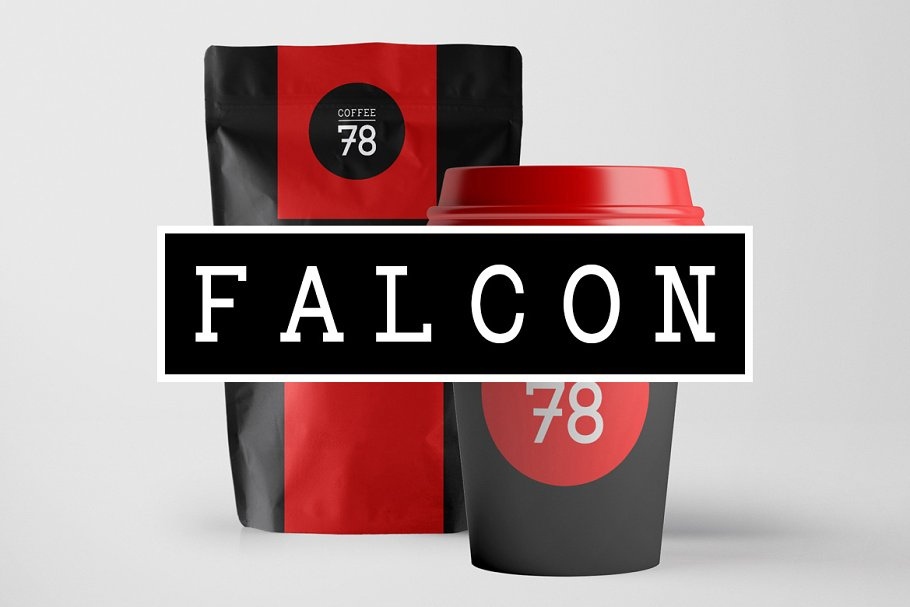
Falcon Font
Falcon Font is perfect for aerospace industry branding, military defense communications, high-performance automotive companies, precision engineering firms, aviation academy materials, and elite sports team identity. Its commanding character makes it ideal for fighter pilot training programs, tactical equipment manufacturers, luxury sports car brands, professional racing teams, adventure sports companies, and any project requiring fierce determination with predatory precision and elite performance standards.
This font is exciting because it embodies the razor-sharp focus and uncompromising excellence of apex predators while delivering exceptional functionality for high-stakes professional communications. The powerfully crafted letterforms evoke images of soaring raptors, supersonic flight, and the relentless pursuit of perfection, creating typography that commands respect and inspires confidence in audiences who demand the highest levels of performance and precision.
The Falcon Font family typically includes Light, Regular, Medium, and Bold weights with aerodynamic alternates, precision-engineered ligatures, and performance elements that enhance its predatory personality. This comprehensive collection enables designers to create authoritative brand systems that maintain elite credibility while providing flexibility for various high-performance applications requiring exceptional standards and competitive excellence.